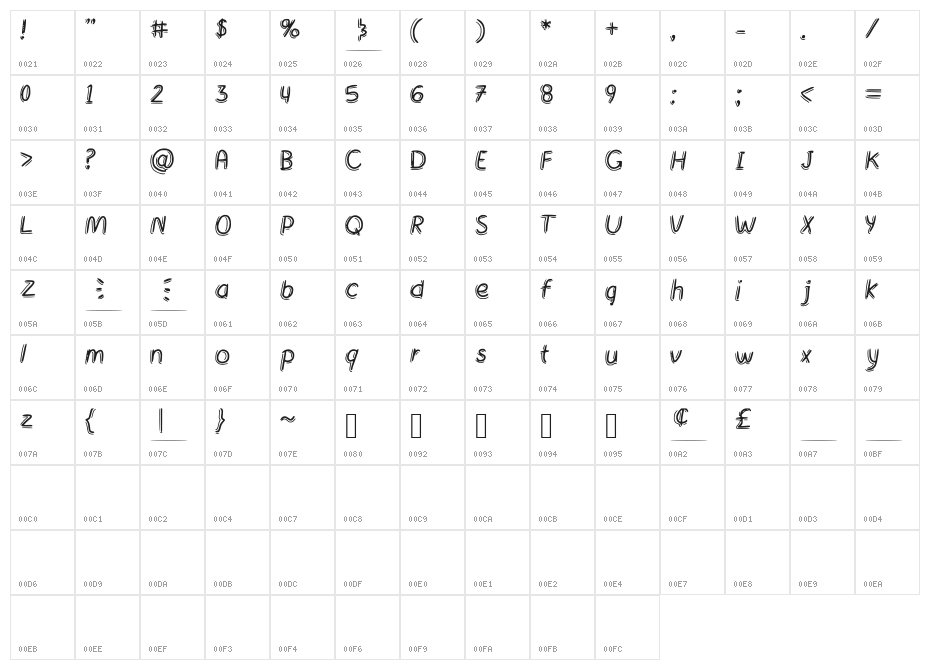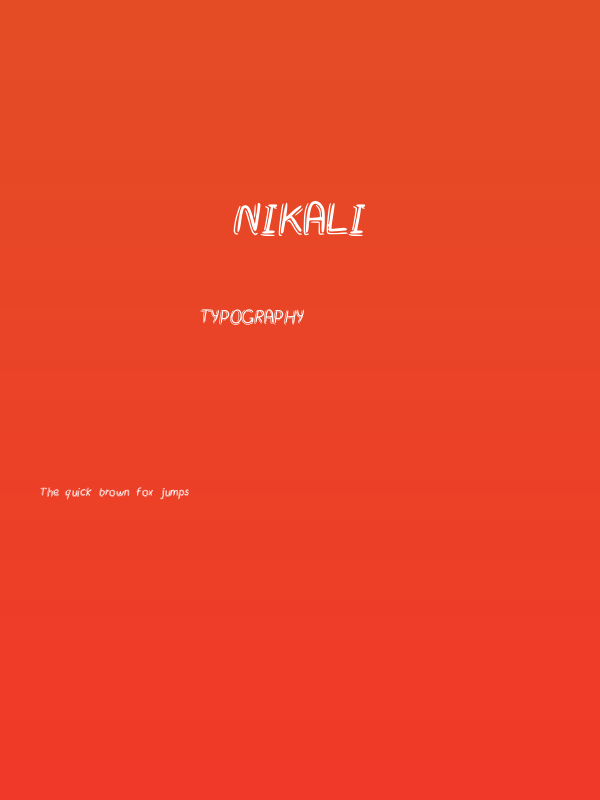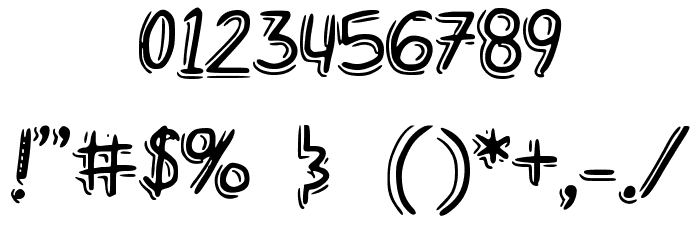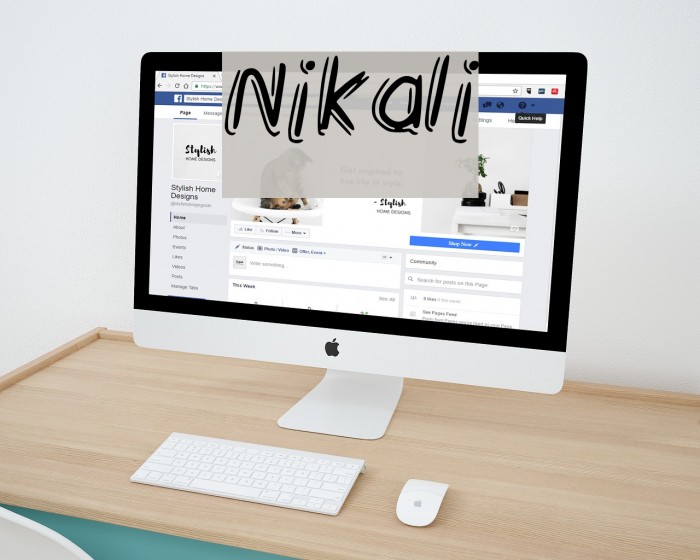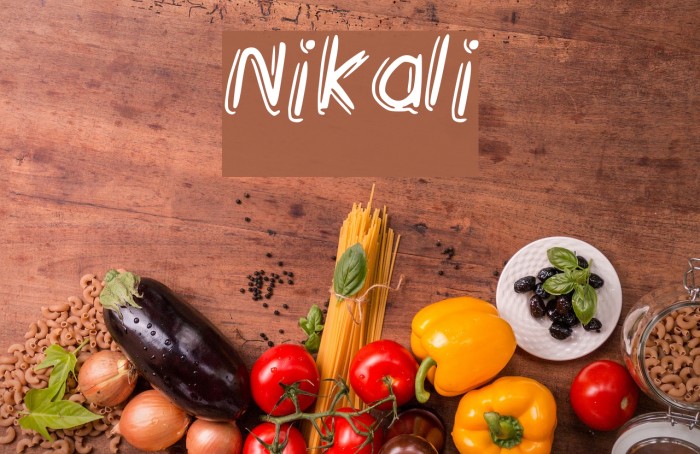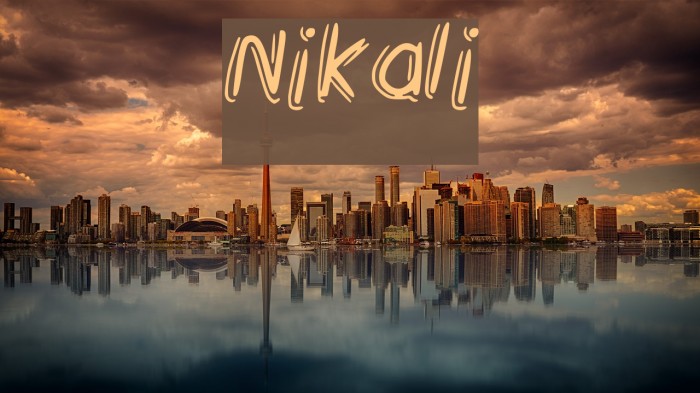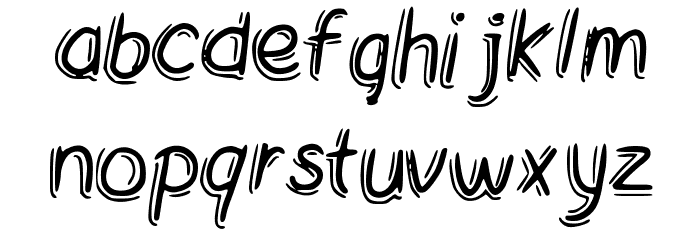
Nikali Font
Nikali Description
This font features a playful and dynamic style with a hand-drawn appearance. The letters have a bold outline that gives them a three-dimensional effect, creating a sense of movement and energy. The strokes are uneven, adding to the casual and informal feel of the font. It includes a full set of uppercase and lowercase letters, numbers, and a variety of special characters. The font's unique style makes it stand out, making it suitable for creative and artistic projects.
| Overall Style | Playful, Artistic |
| Proposed Projects | Ideal for children's books, comic strips, playful branding, and creative posters. |
| Author | Fonts by Måns Grebäck |